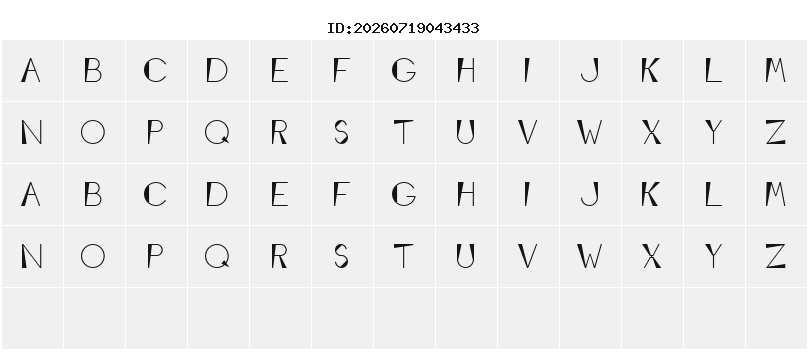
Cone Wedge Preview
• Font Name: Cone Wedge
• Character Count: 52
About Cone Wedge.ttf
Cone Wedge.ttf is a modern, elegant sans-serif font designed for ultimate readability and visual harmony. Perfect for branding, headlines, web design, and print materials.